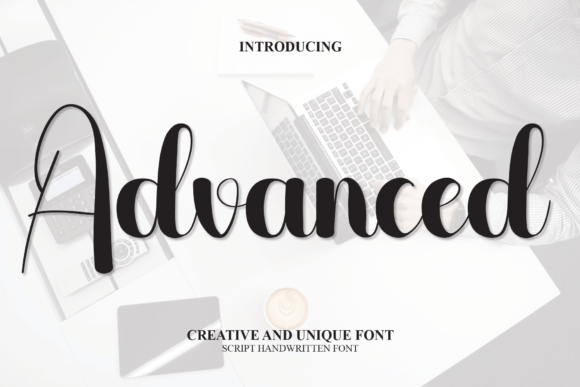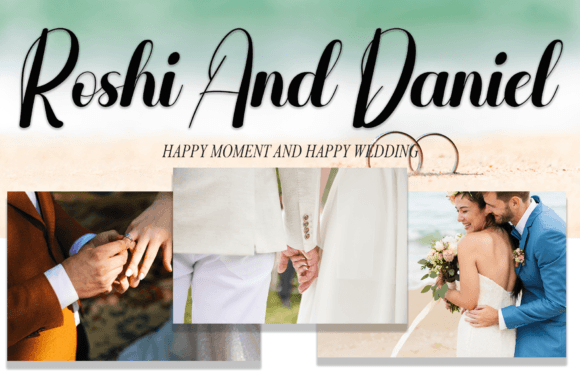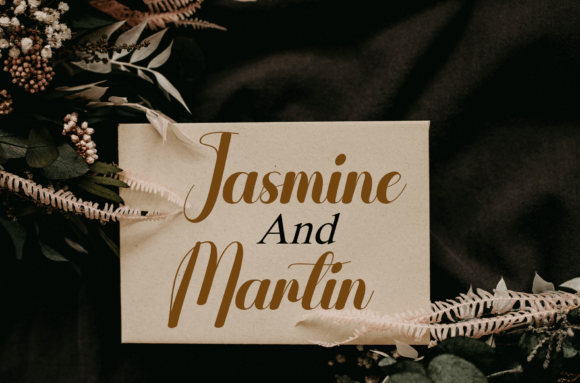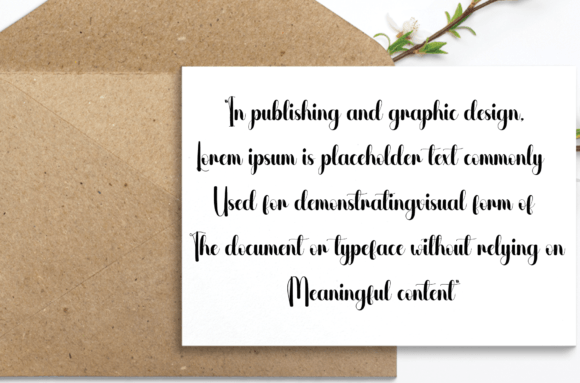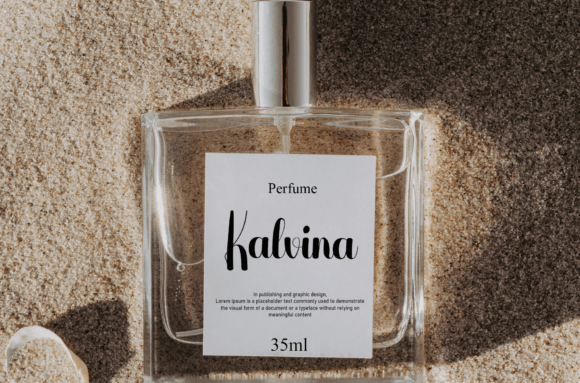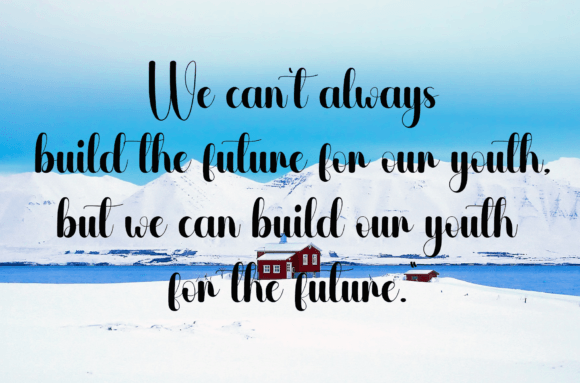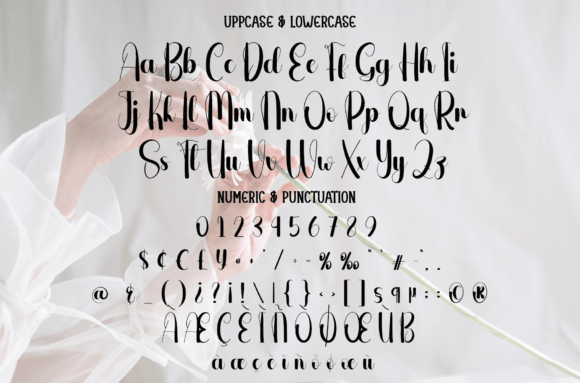
Adding a Personal Touch with Advanced Font
Have you ever stared at a blank page, searching for the perfect font to convey the emotions and feelings you want to express? It’s that moment when the right font can make all the difference. For me, it was the perfect font for a friend’s wedding invitation – something that would capture the sweetness and joy of the occasion.
That’s when I discovered the Advanced Font, a delightful handwritten font that exudes friendliness and a touch of playfulness. Its fresh and neat design makes it perfect for creating unique wedding invitations, greeting cards, and other designs that require a personal touch. As a designer, I can attest to the value of having a versatile font like Advanced Font in your toolkit – it’s a game-changer for adding a personal and emotional connection to your work.
Advanced Font Key Features
Advanced Font Review
Overall, I’m quite impressed with Advanced Font, but there’s room for improvement. Let’s start with what works well:
- ✨ Extensive Character Set – This font has an incredible range of characters, including emojis and special symbols. It’s perfect for designers who need to create content for global audiences.
- ✨ High Customization Options – The font allows for a wide range of adjustments, from font size and color to spacing and alignment. This makes it easy to tailor the font to specific design projects.
- ✨ Smooth Rendering – The font renders beautifully on various devices and browsers, ensuring a consistent look across different platforms.
Overall, I’d say Advanced Font is a solid choice for designers who need a versatile, customizable font. While it’s not perfect, its strengths outweigh its weaknesses, and with a bit of tweaking, it can become a valuable addition to any design project.
Getting the Most Out of Advanced Fonts
To get the most out of advanced fonts, experiment with different font combinations and styles to create visually appealing designs. Use font pairing tools or online resources to find compatible font pairs. Don’t be afraid to try out unique and bold fonts to add personality to your designs.
Advanced fonts are commonly used in graphic design, branding, and typography projects. They can add a professional touch to resumes, business cards, and marketing materials. They can also be used to create eye-catching headlines and titles for presentations, websites, and social media posts.